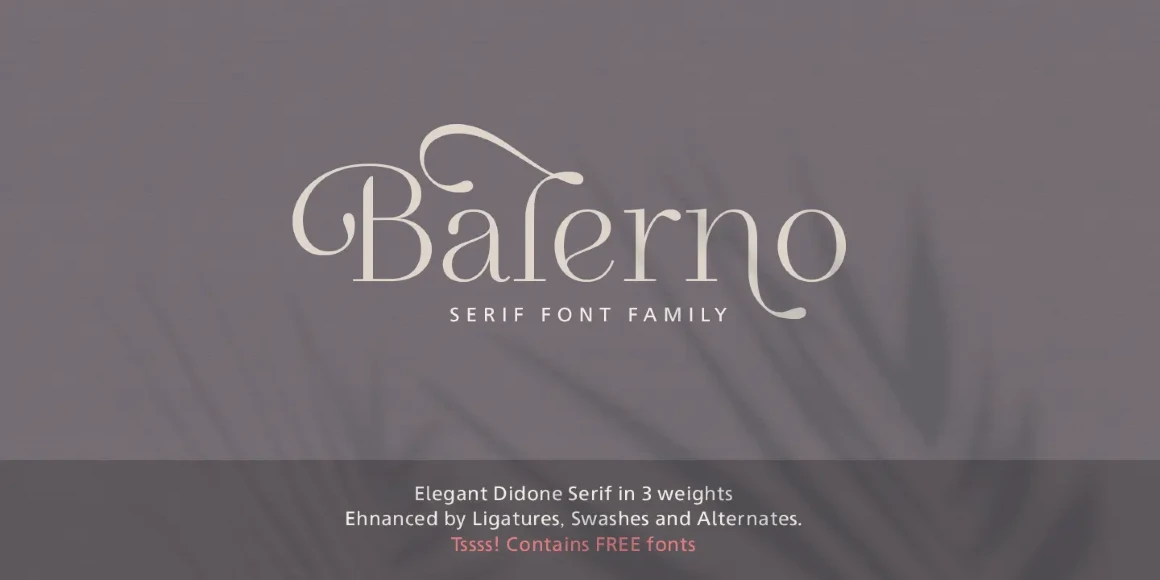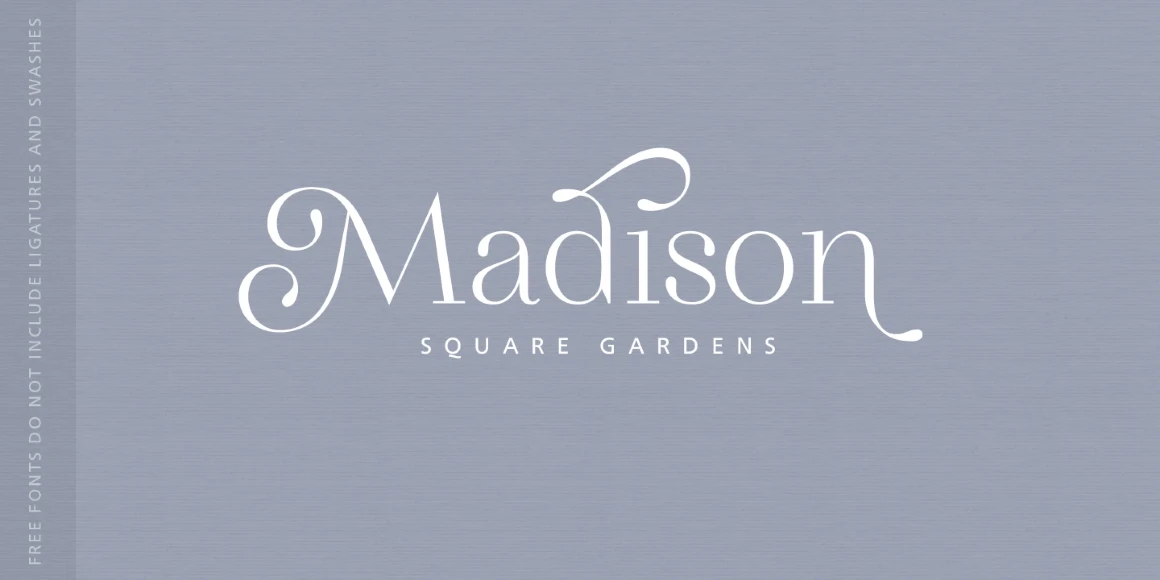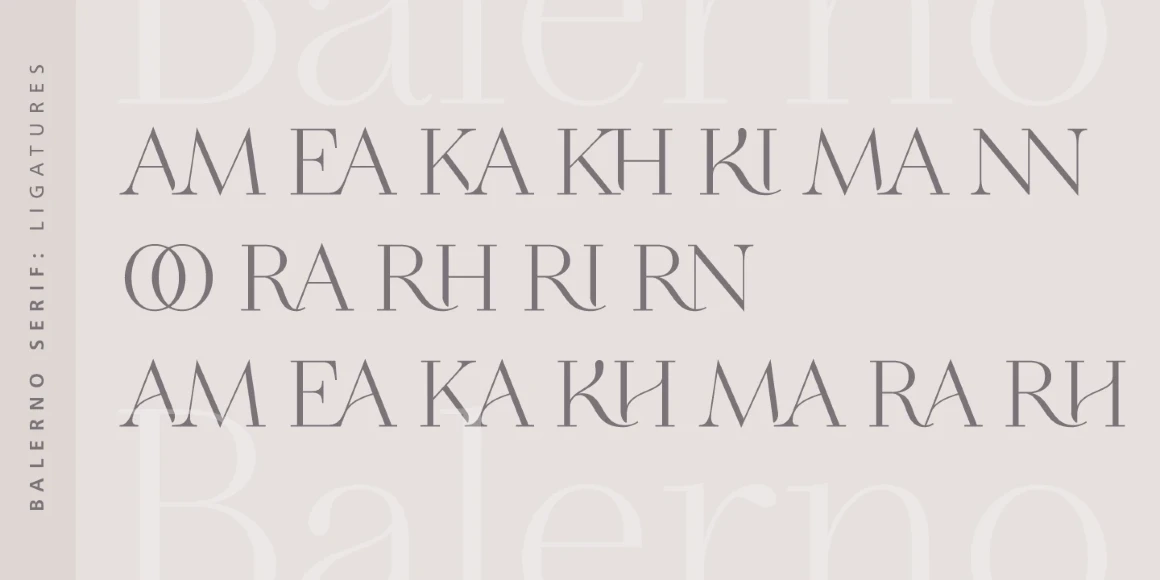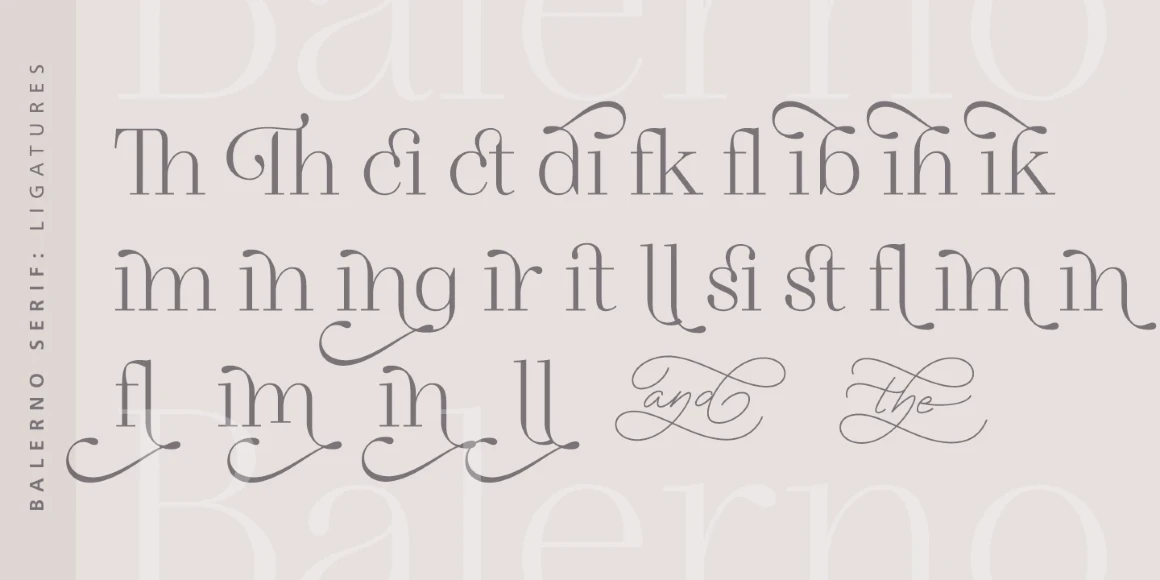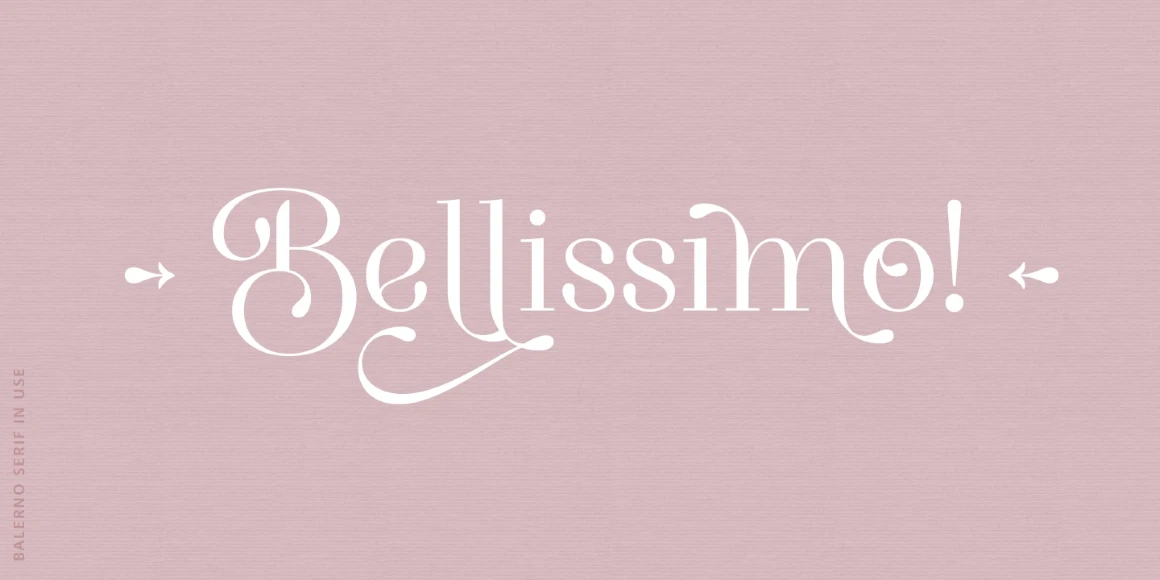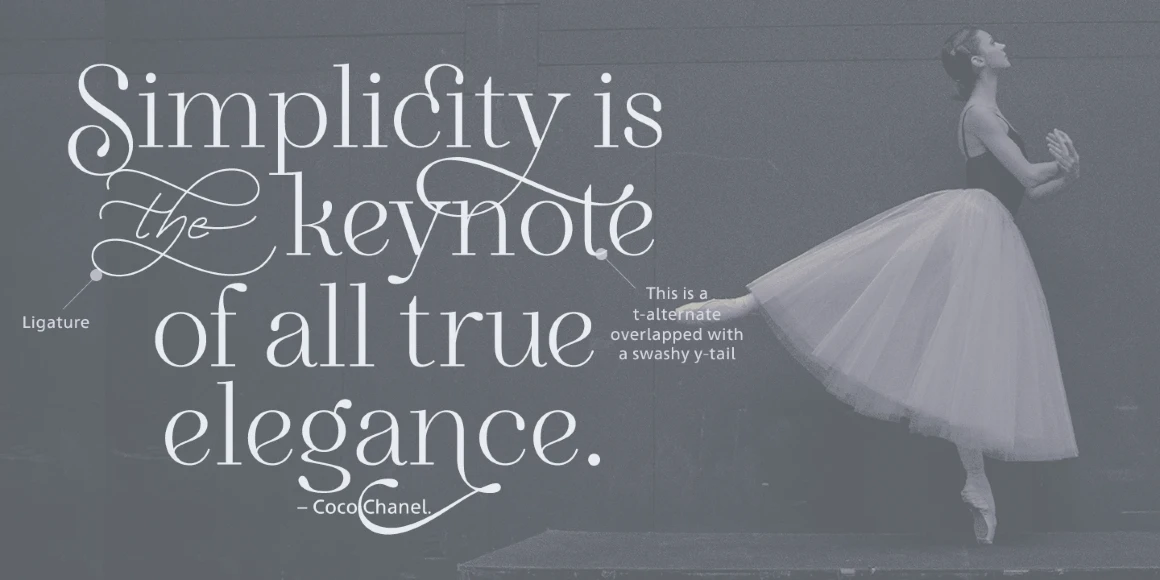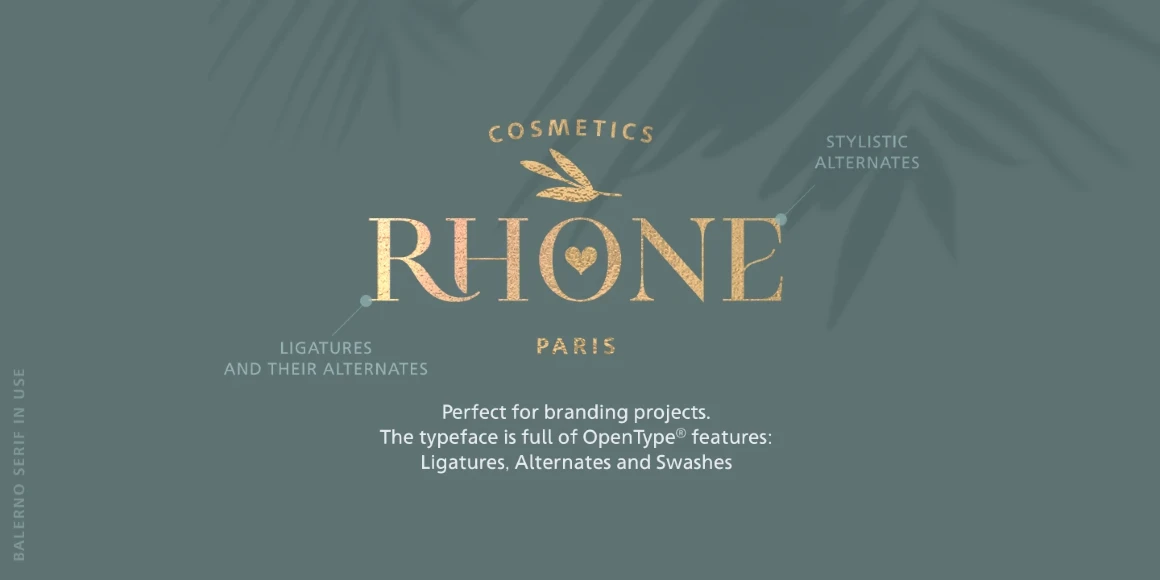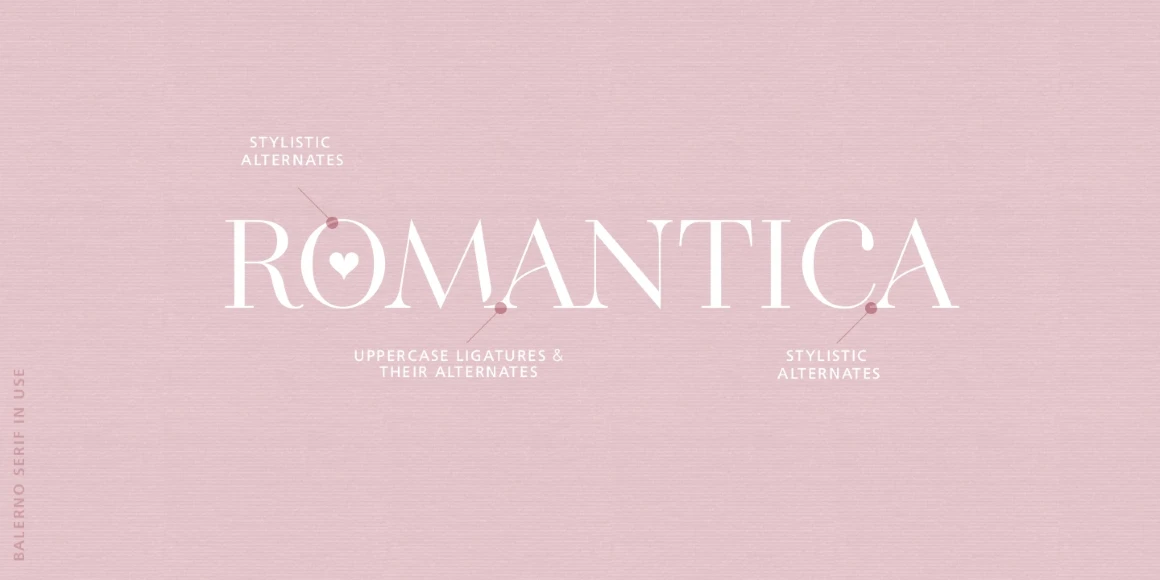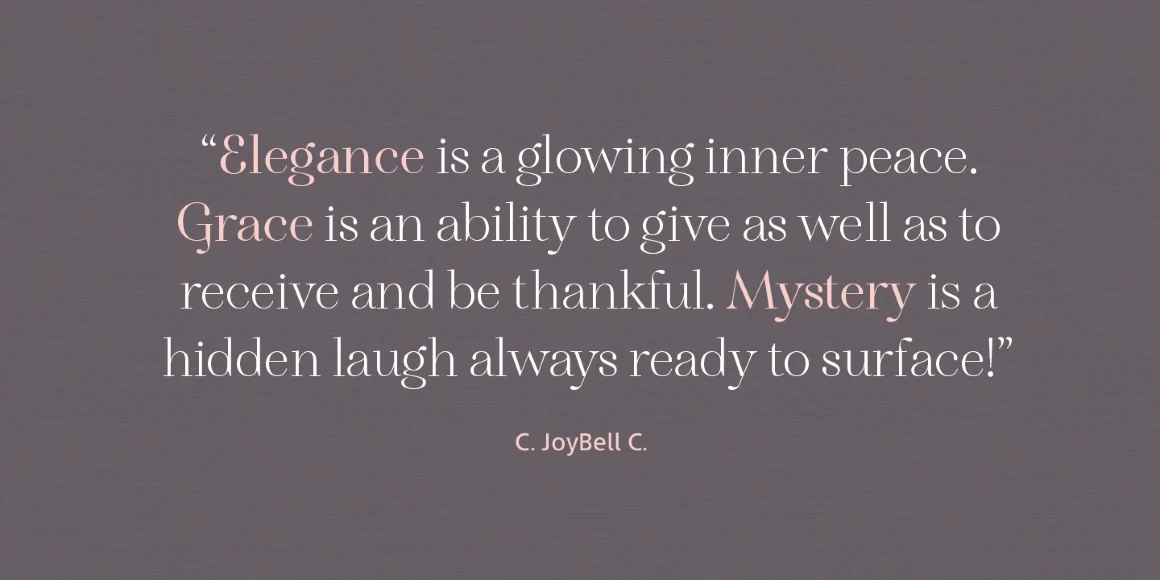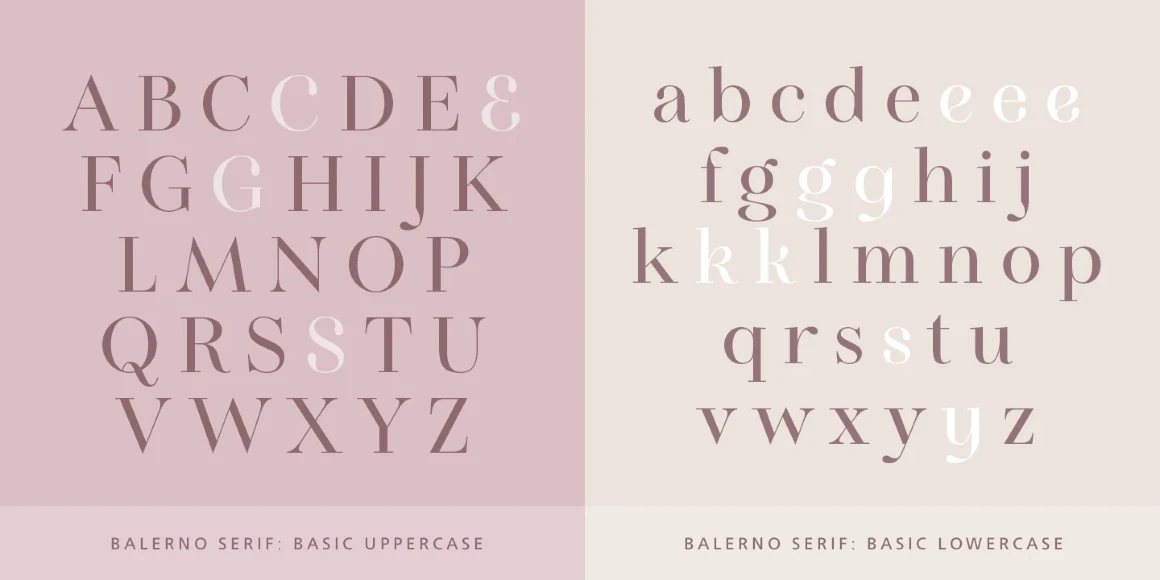
Balerno Serif
By Elena Genova
Balerno Serif Light
Balerno Serif Regular
Balerno Serif Bold
Balerno is an elegantly modern Didone serif with a twist. The added enhancement of ligatures, alternates, and swashes adds versatility beyond the genre and opens up the family to other possibilities. This family could gracefully add panache to a wide range of design projects, from seasonal greeting cards, fashion magazines, wedding invitations, skincare websites, social media branding, and more.